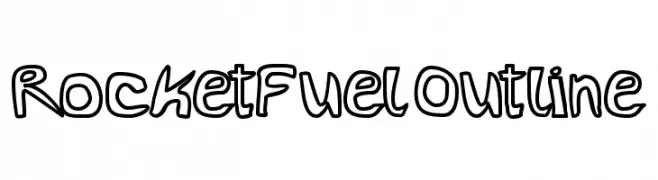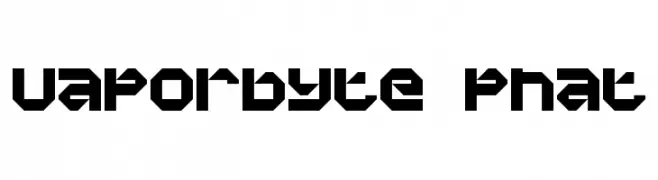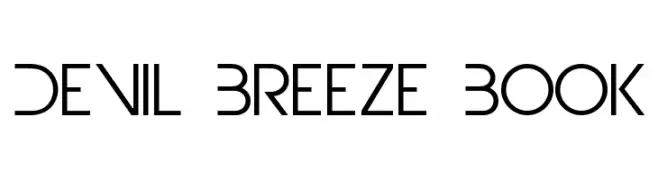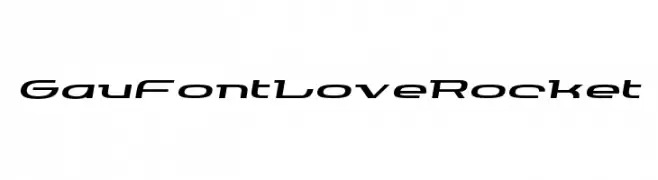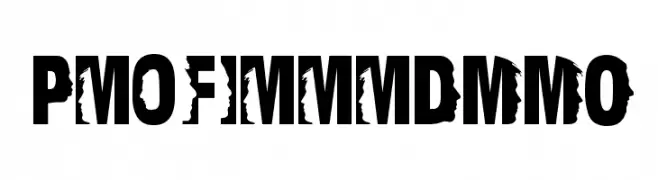
( vitolaurino.com.ar )
A playful, handwritten font with irregular strokes and a casual, dynamic appearance.
( Fonts by dustBUST - Andreas Nylin )
A bold, geometric font with a futuristic and digital aesthetic.
( WesLo Fonts - Wesley Pastrana - weslo11.deviantart.com/ )
A modern, geometric font with clean lines and angular shapes.
( Fonts by Intellecta Design )
A classic blackletter font with ornate and intricate letterforms.
A sleek, modern font with a futuristic and dynamic design.
A modern, geometric sans-serif font with clean lines and uniform stroke width.
( Fonts by www.haroldsfonts.com )
A bold, silhouette-style font with a modern and artistic flair.